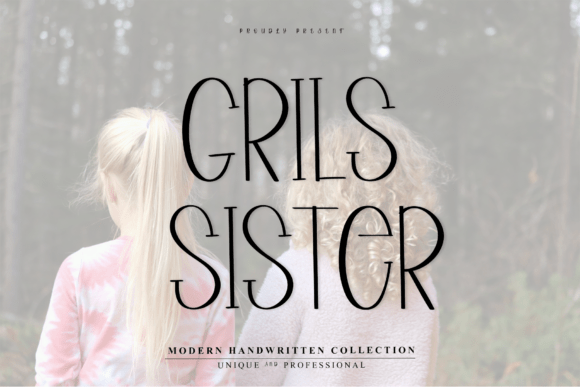
Introducing Grils Sister Font: The Minimal and Neat Solution for Your Creative Projects
Are you tired of using overused and cliché fonts in your creative projects? Look no further than Grils Sister Font, a minimal and neat font that can elevate your designs to the next level. In this article, we’ll explore the features and benefits of Grils Sister Font, and how it can be matched to a wide range of projects to make them stand out.
The Characteristics of Grils Sister Font
Grils Sister Font is a sans-serif font that boasts a clean and minimalist aesthetic. Its simple and uncluttered design makes it perfect for use in a variety of projects, from digital media to print materials. The font’s neat and organized structure ensures that it remains highly legible, even at smaller sizes.
One of the standout features of Grils Sister Font is its versatility. It can be used in a range of contexts, from headlines and titles to body text and captions. Its neutral tone makes it an excellent choice for designers who want to create a professional and sophisticated look without drawing attention away from the content.
The Benefits of Using Grils Sister Font
So why choose Grils Sister Font for your creative projects? Here are just a few benefits of using this fantastic font:
- Improved Legibility: Grils Sister Font is designed to be highly legible, even at smaller sizes. This makes it perfect for use in body text, captions, and other applications where readability is crucial.
- Versatility: Grils Sister Font can be used in a wide range of projects, from digital media to print materials. Its neutral tone makes it an excellent choice for designers who want to create a professional and sophisticated look.
- Unique and Creative: While Grils Sister Font is minimalist in design, it’s far from boring. Its clean lines and simple structure make it a great choice for designers who want to add a touch of elegance and sophistication to their work.
How to Use Grils Sister Font in Your Creative Projects
Grils Sister Font is incredibly easy to use, and can be matched to a wide range of projects to make them stand out. Here are a few ideas to get you started:
- Digital Media: Use Grils Sister Font in your website designs, social media graphics, and other digital media to create a professional and sophisticated look.
- Print Materials: Grils Sister Font is perfect for use in print materials, such as brochures, flyers, and business cards.
- Branding and Identity: Use Grils Sister Font to create a unique and memorable brand identity for your business or organization.
Tips for Pairing Grils Sister Font with Other Fonts
While Grils Sister Font is a stunning font in its own right, it can also be paired with other fonts to create a unique and eye-catching look. Here are a few tips for pairing Grils Sister Font with other fonts:
- Contrast with Script Fonts: Pair Grils Sister Font with a script font to create a beautiful contrast between the clean lines of Grils Sister and the flowing curves of the script font.
- Match with Bold Fonts: Pair Grils Sister Font with a bold font to create a striking contrast between the two.
- Use with Serif Fonts: Grils Sister Font can also be paired with serif fonts to create a classic and sophisticated look.
In conclusion, Grils Sister Font is a minimal and neat font that can easily be matched to an incredibly large set of projects. Its versatility, legibility, and unique design make it an excellent choice for designers who want to create a professional and sophisticated look. Whether you’re working on a digital media project, a print material, or a branding and identity project, Grils Sister Font is sure to make your work stand out.